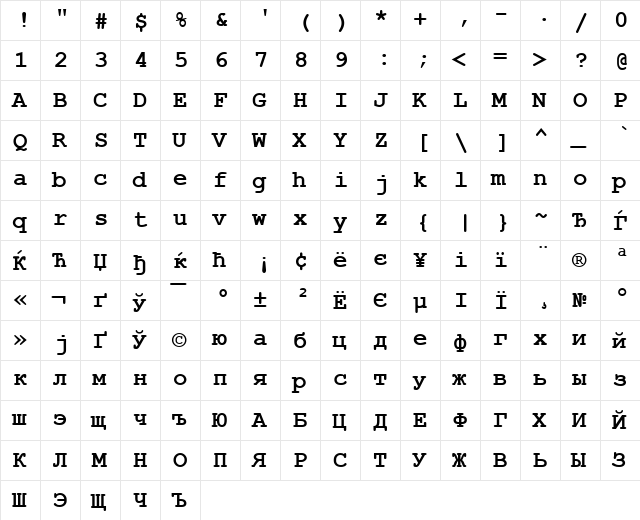
Courier New KOI8 Bold
| Designer | Howard Kettler |
Courier New KOI8 brings the precise, column-aligned rhythm of monospaced typography to designs that value technical clarity and systematic order. The heavy weight commands attention and anchors typographic hierarchies.